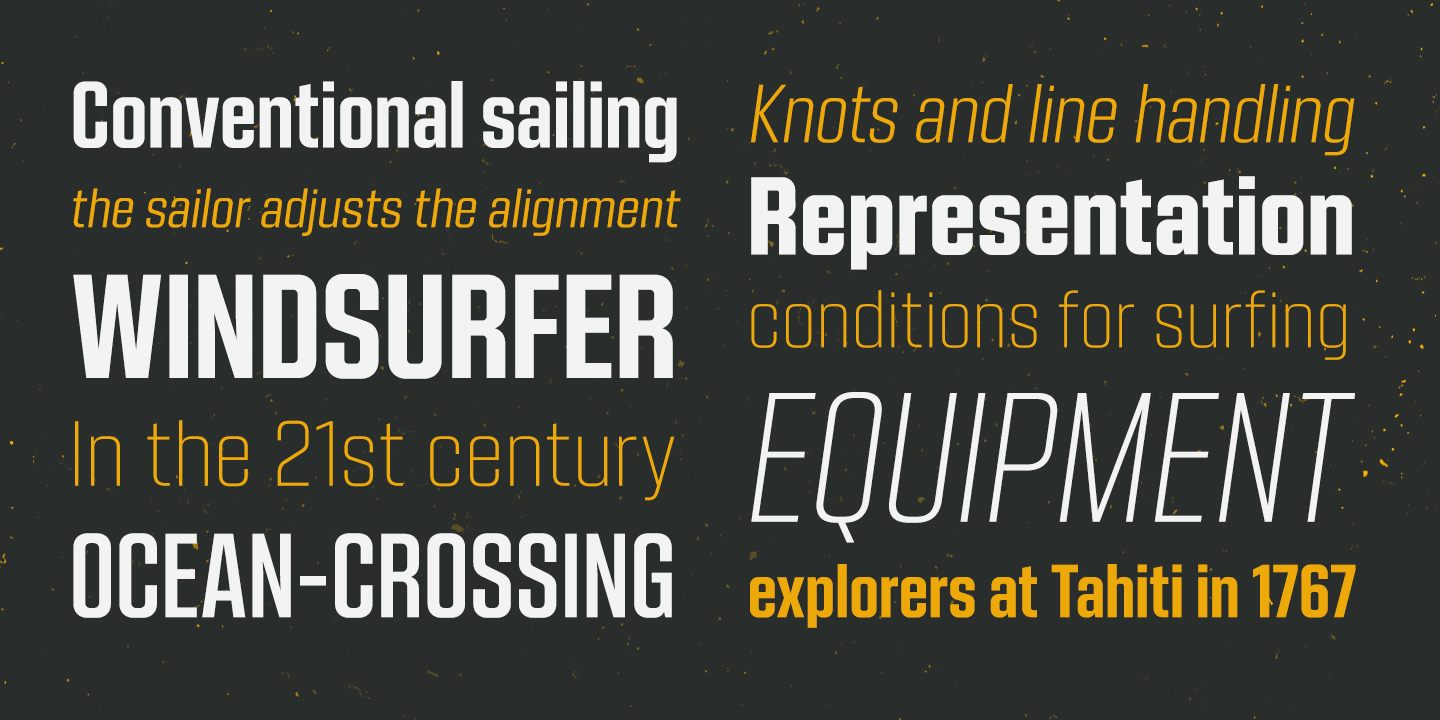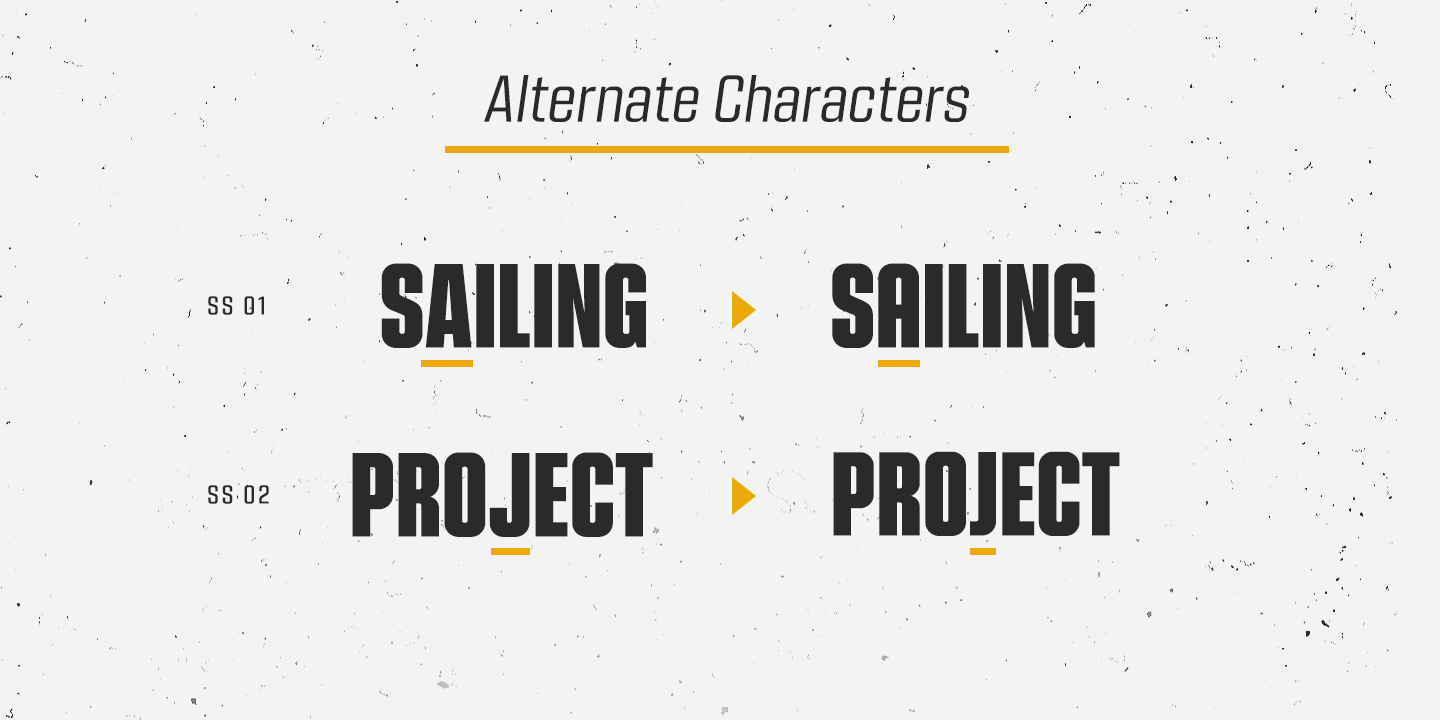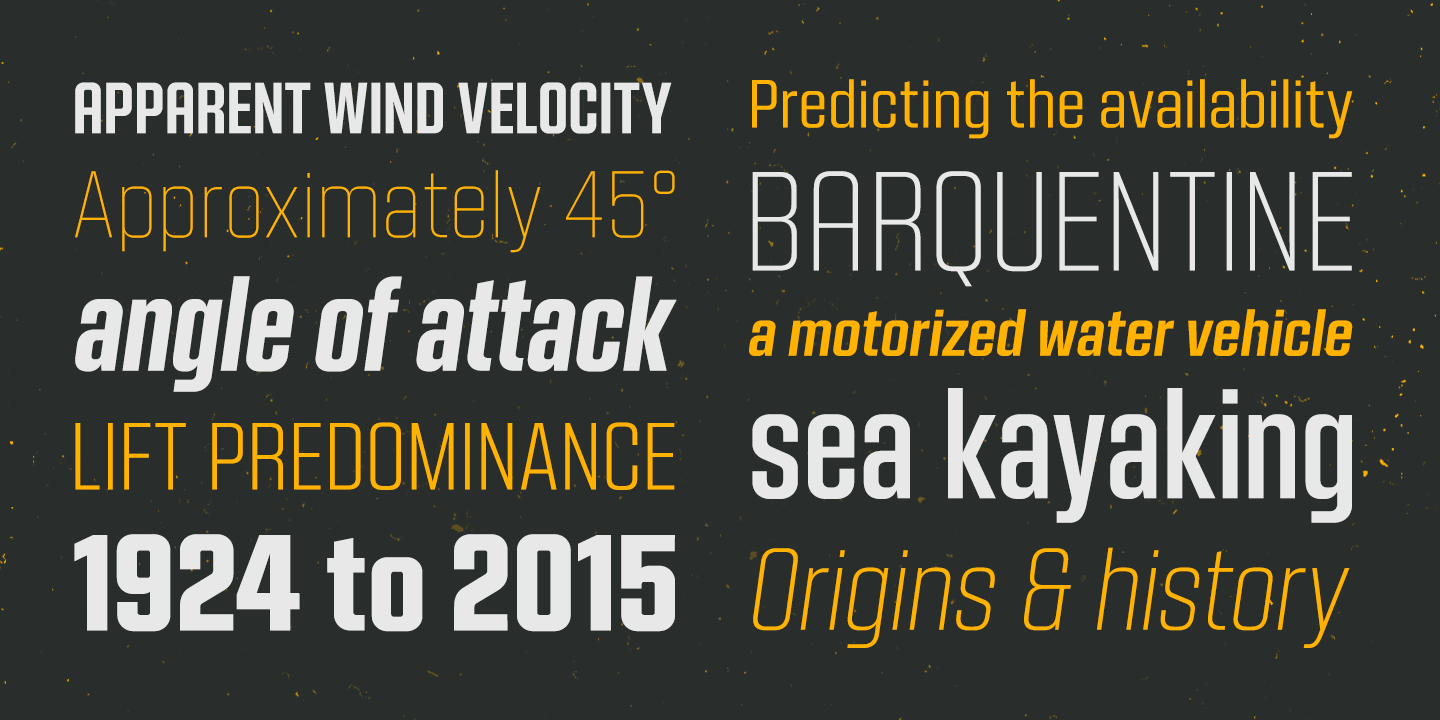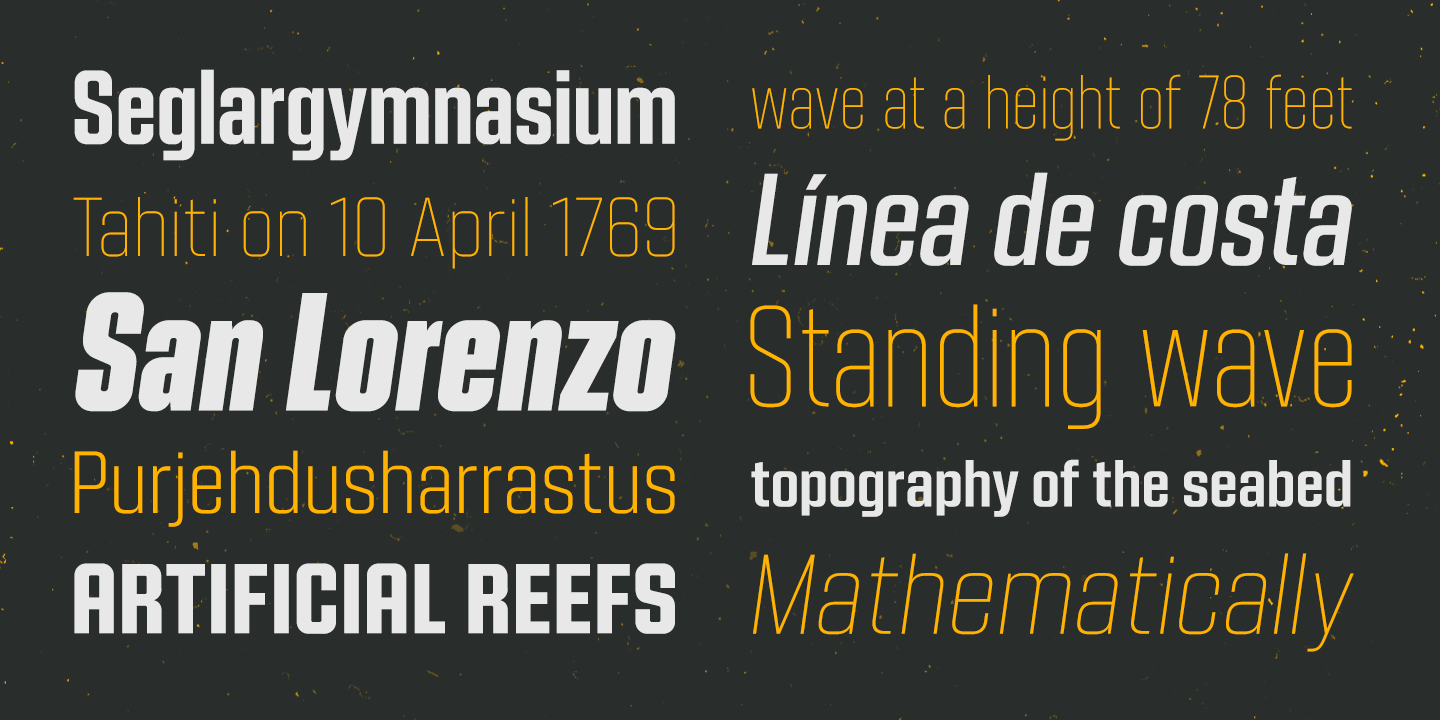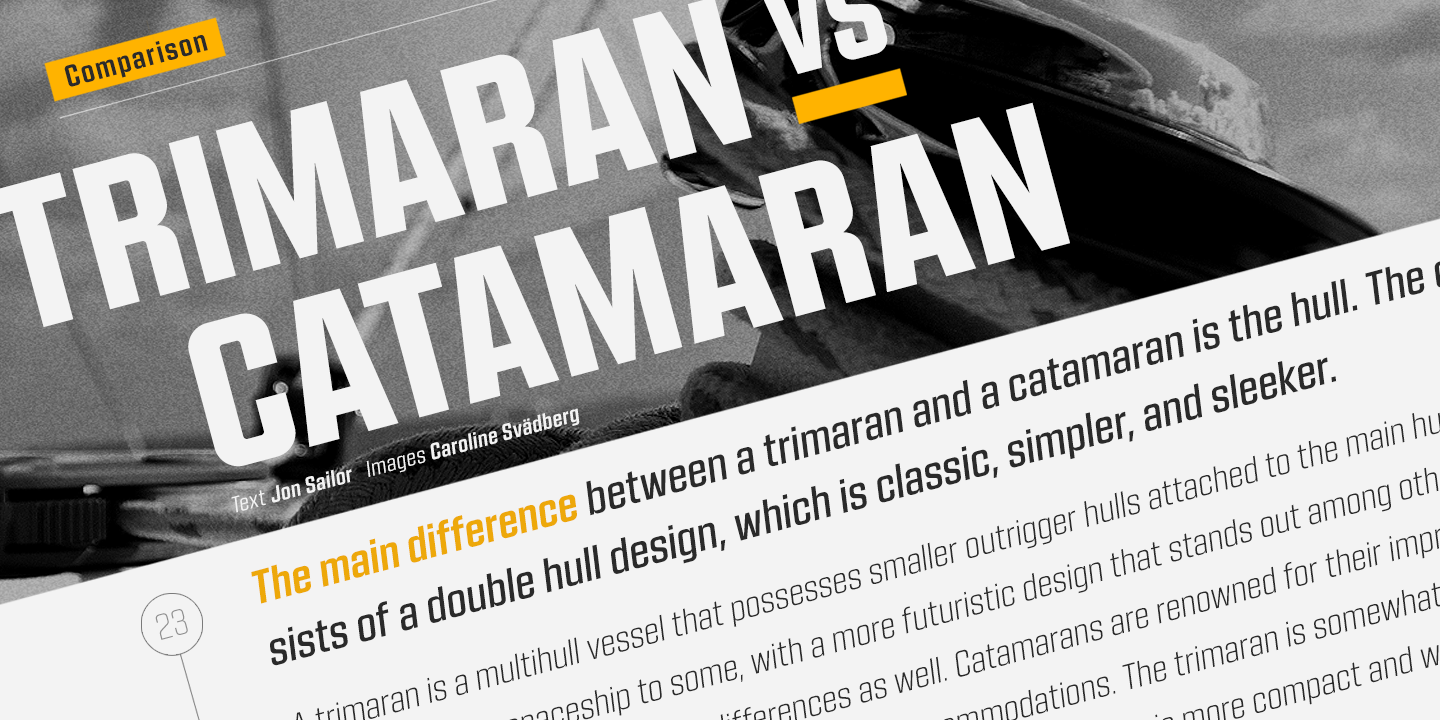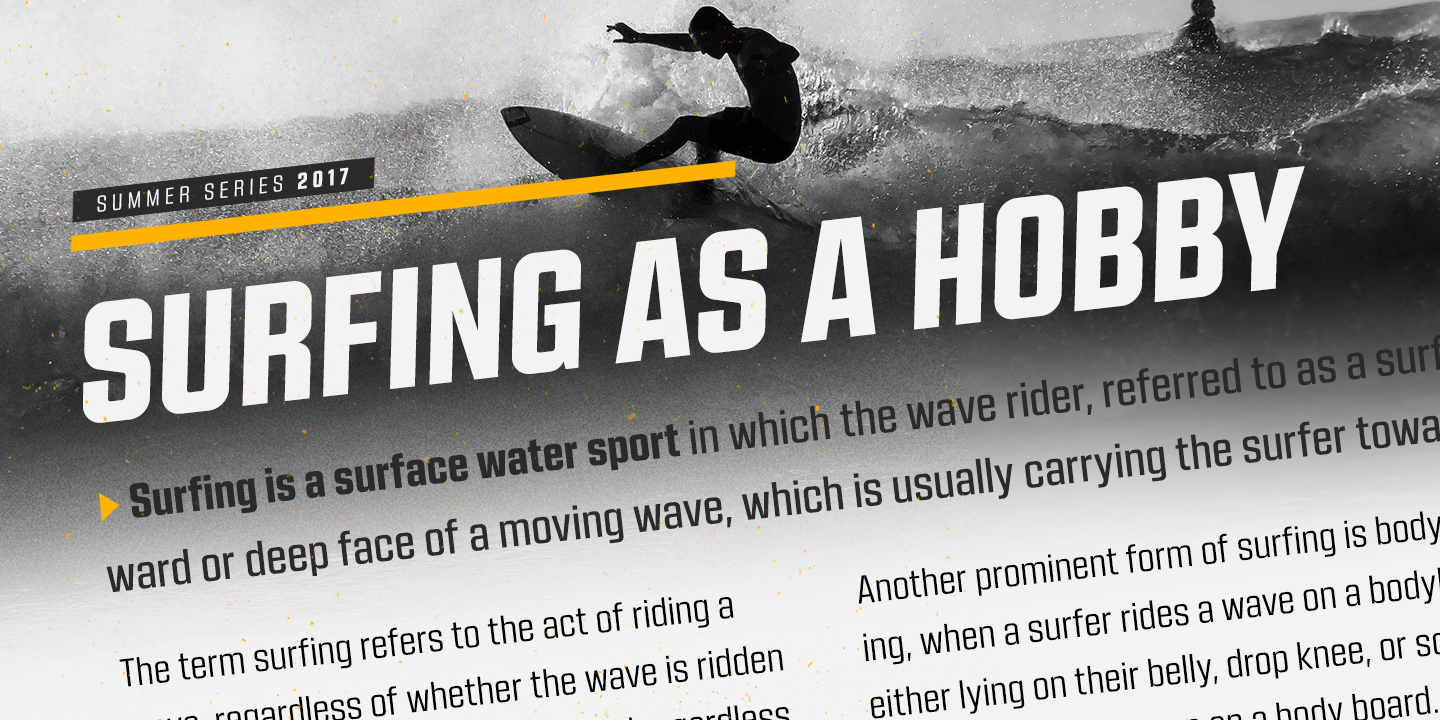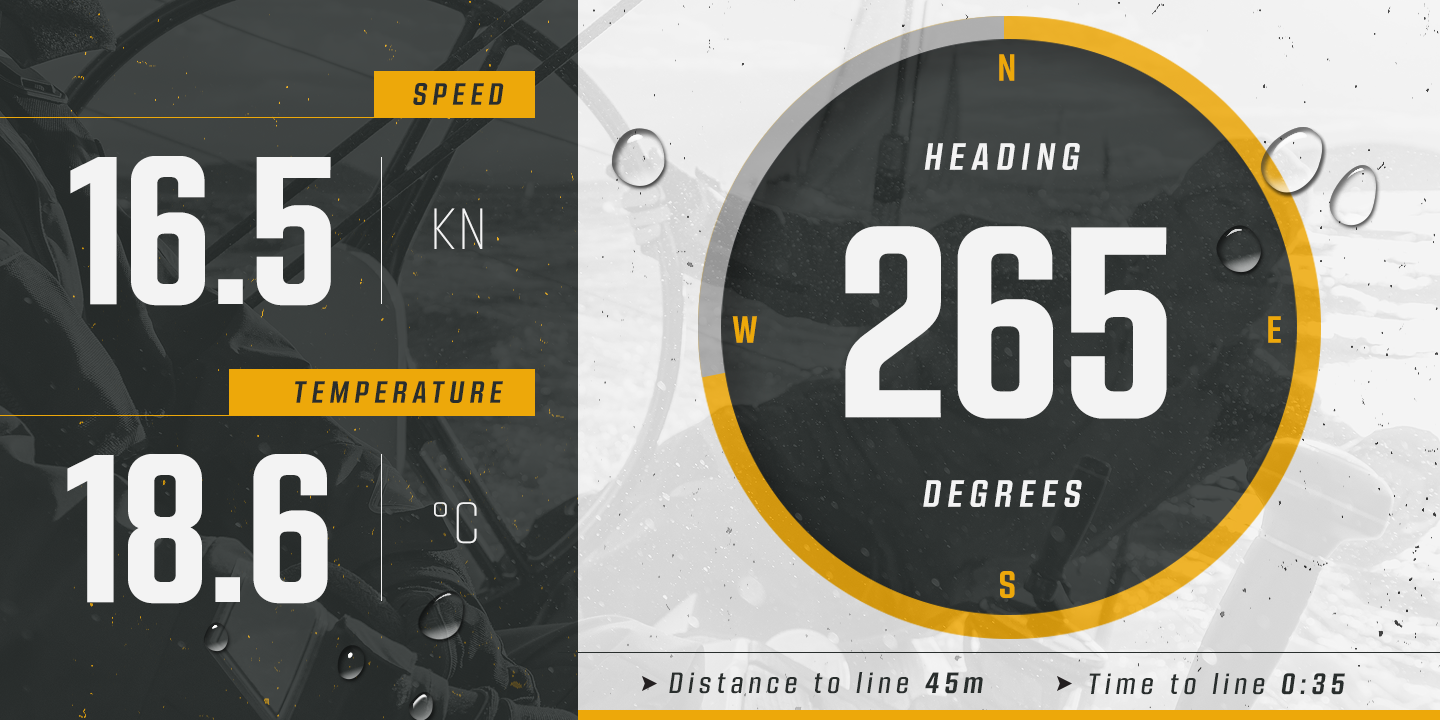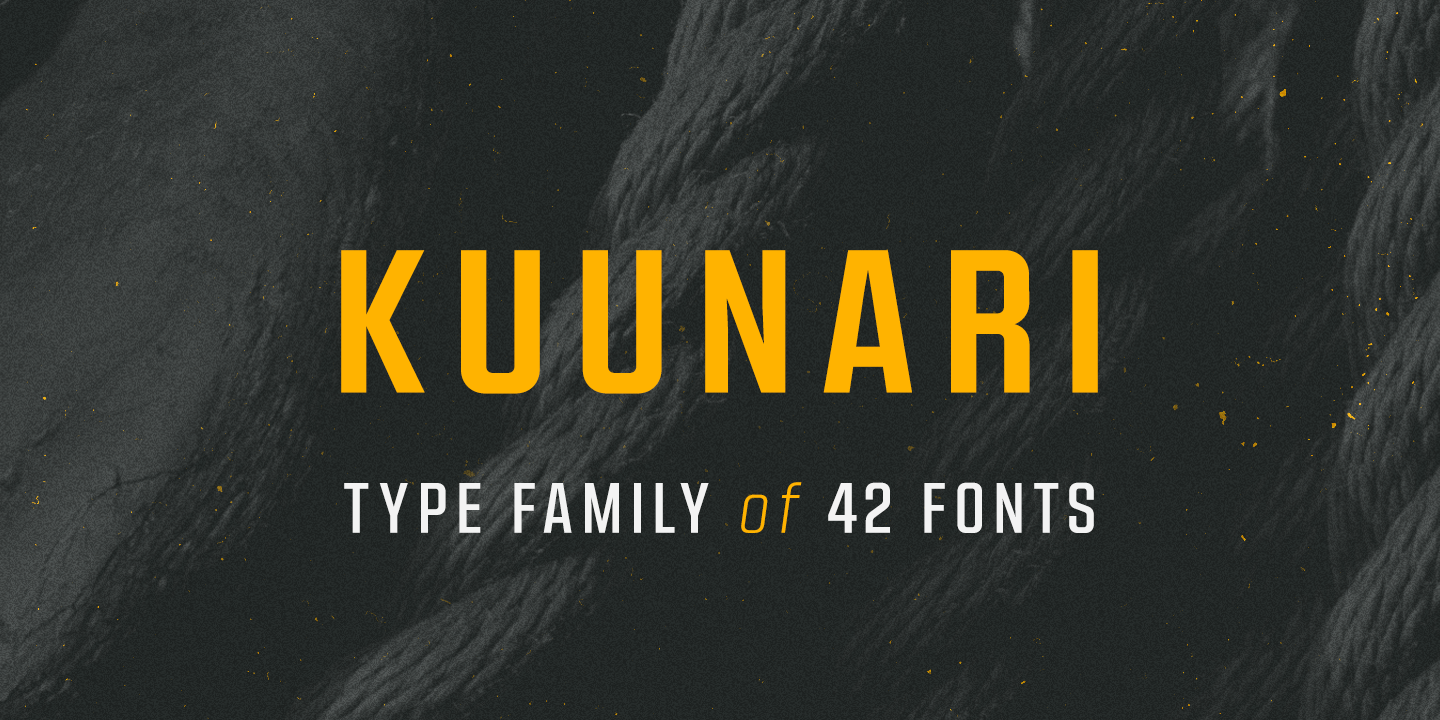
Kuunari
Kuunari is a structured square sans type family of 42 fonts. It has three widths and seven weights in both upright and italic versions. The base form is a round-cornered rectangle, and this form constructs the glyphs throughout the fonts.
Kuunari is a straightforward sans serif. It doesn't make any fuss about itself; it just does the job proudly and confidently. It is versatile; it can be used for titles and logos to make a statement or, more delicately, for body text and lead paragraphs. All in all, you can achieve diverse and rich typography with the Kuunari type family.